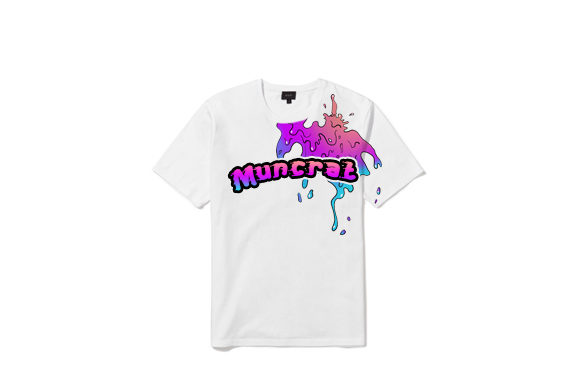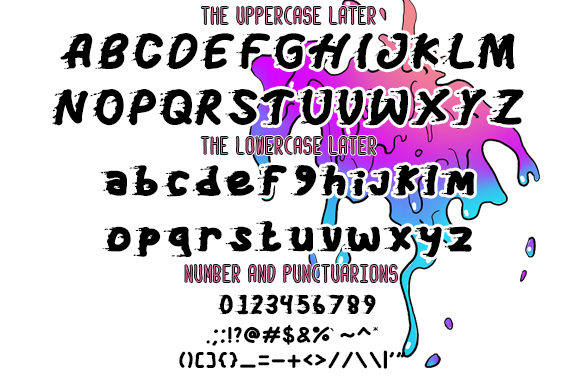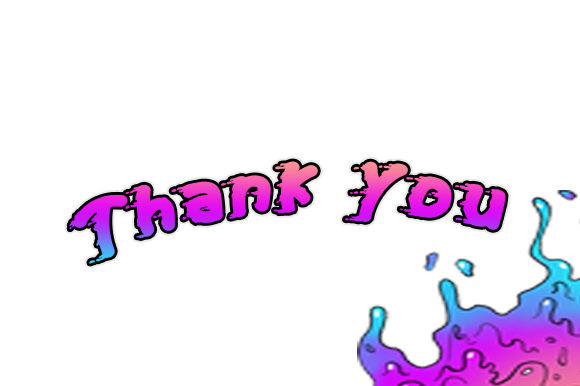
Unleash Your Creativity with Grime Font: The Fun Decorative Font Inspired by Sludge and Slime
Are you tired of using the same old fonts in your creative projects? Do you want to add a unique twist to your designs and make them stand out from the crowd? Look no further than Grime Font, a fun decorative font that is inspired by sludge and slime. In this article, we’ll take a closer look at Grime Font, its features, and how you can use it to take your designs to the next level.
What is Grime Font?
Grime Font is a decorative font that is designed to resemble the messy, gooey texture of sludge and slime. It’s a fun and playful font that is perfect for designers and crafters who want to add a touch of whimsy to their projects. The font is made up of bold, chunky letters that are splattered and smeared, giving it a unique and eye-catching appearance.
Features of Grime Font
Grime Font has a number of features that make it a great choice for designers and crafters. Some of its key features include:
- Unique and eye-catching design: Grime Font’s bold, chunky letters and splattered texture make it a standout font that is sure to grab attention.
- High-quality graphics: The font is made up of high-quality graphics that are clear and crisp, making it perfect for use in a variety of projects.
- Versatile: The font can be used in a variety of projects, from digital designs to print projects, and is suitable for use in a range of industries, from creative and entertainment to education and marketing.
How to Use Grime Font
Grime Font is a versatile font that can be used in a variety of projects. Here are a few ideas for how you can use it:
- Digital designs: Use Grime Font in your digital designs, such as social media graphics, blog posts, and email marketing campaigns, to add a touch of whimsy and personality.
- Print projects: Use Grime Font in your print projects, such as brochures, flyers, and posters, to create eye-catching and memorable designs.
- Crafting projects: Use Grime Font in your crafting projects, such as scrapbooking, card making, and journaling, to add a personal and creative touch.
Tips for Getting the Most Out of Grime Font
Here are a few tips for getting the most out of Grime Font:
- Experiment with different colors: Grime Font looks great in a variety of colors, so don’t be afraid to experiment and find the perfect color scheme for your project.
- Combine with other fonts: Grime Font pairs well with other fonts, so try combining it with a sans-serif font for a bold and modern look.
- Use it sparingly: Grime Font is a bold and eye-catching font, so use it sparingly to avoid overwhelming your design.
Grime Font is a fun and decorative font that is inspired by sludge and slime. Its unique and eye-catching design makes it perfect for designers and crafters who want to add a touch of whimsy to their projects. With its high-quality graphics, ease of use, and versatility, Grime Font is a great choice for anyone looking to take their designs to the next level. So why not give it a try and see how it can add a unique twist to your creative projects?
Whether you’re a professional designer or a crafter, Grime Font is a great addition to your font collection. So go ahead, get creative, and see what amazing designs you can come up with using Grime Font!